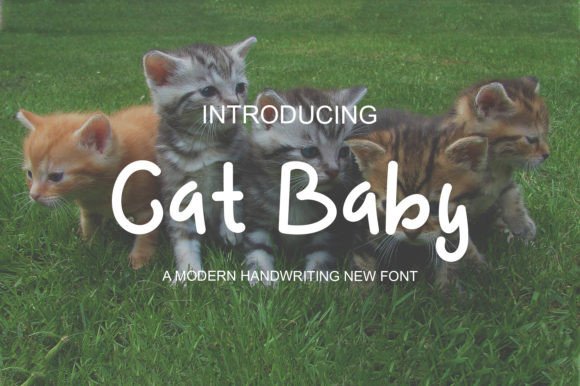
Introducing Cat Baby Font: The Ultimate Display Font for Fun and Creativity
Are you looking for a font that can add a touch of youth and joy to your designs? Look no further than Cat Baby Font! This cool, incredibly cute, and bubbly display font is perfect for party invitations, swimming gatherings, or any design that requires a dash of fun and playfulness. In this article, we’ll dive into the world of Cat Baby Font and explore its features, benefits, and uses.
What is Cat Baby Font?
Cat Baby Font is a display font that embodies the perfect blend of functionality and aesthetic appeal. Its clear legibility, versatile adaptability, and visually appealing design make it an invaluable asset for designers, businesses, and communicators who seek a font that seamlessly marries practicality with style.
With its bubbly and playful design, Cat Baby Font is sure to capture the attention of your audience and leave a lasting impression. Whether you’re designing party invitations, flyers, or social media graphics, this font is sure to add a touch of fun and whimsy to your creations.
Key Features of Cat Baby Font
So, what makes Cat Baby Font so special? Here are some of its key features:
- Clear Legibility: Despite its playful design, Cat Baby Font remains highly legible, making it perfect for use in a variety of design applications.
- Versatile Adaptability: This font can be used in a range of design contexts, from party invitations to business branding.
- Visually Appealing Design: Cat Baby Font features a unique and visually appealing design that is sure to capture the attention of your audience.
Benefits of Using Cat Baby Font
So, why should you choose Cat Baby Font for your design projects? Here are some of the benefits of using this amazing font:
- Adds a Touch of Fun and Whimsy: Cat Baby Font is perfect for adding a dash of fun and playfulness to your designs.
- Perfect for Party Invitations and Events: This font is ideal for designing party invitations, flyers, and other event materials.
- Great for Social Media Graphics: Cat Baby Font can be used to create eye-catching social media graphics that are sure to grab the attention of your followers.
- Easy to Read and Understand: Despite its playful design, Cat Baby Font remains highly legible, making it easy for your audience to read and understand.
Who Can Use Cat Baby Font?
Cat Baby Font is perfect for a range of designers, businesses, and communicators, including:
- Graphic Designers: This font is perfect for graphic designers who want to add a touch of fun and whimsy to their designs.
- Event Planners: Cat Baby Font is ideal for event planners who want to create eye-catching party invitations and event materials.
- Social Media Managers: This font can be used by social media managers who want to create engaging and eye-catching social media graphics.
- Crafters and DIY Enthusiasts: Cat Baby Font is also perfect for crafters and DIY enthusiasts who want to add a personal touch to their creations.
In conclusion, Cat Baby Font is a cool, incredibly cute, and bubbly display font that is perfect for adding a touch of fun and whimsy to your designs. With its clear legibility, versatile adaptability, and visually appealing design, this font is sure to become a favorite among designers, businesses, and communicators. So why wait? Download Cat Baby Font today and start creating fun and engaging designs that are sure to capture the attention of your audience!